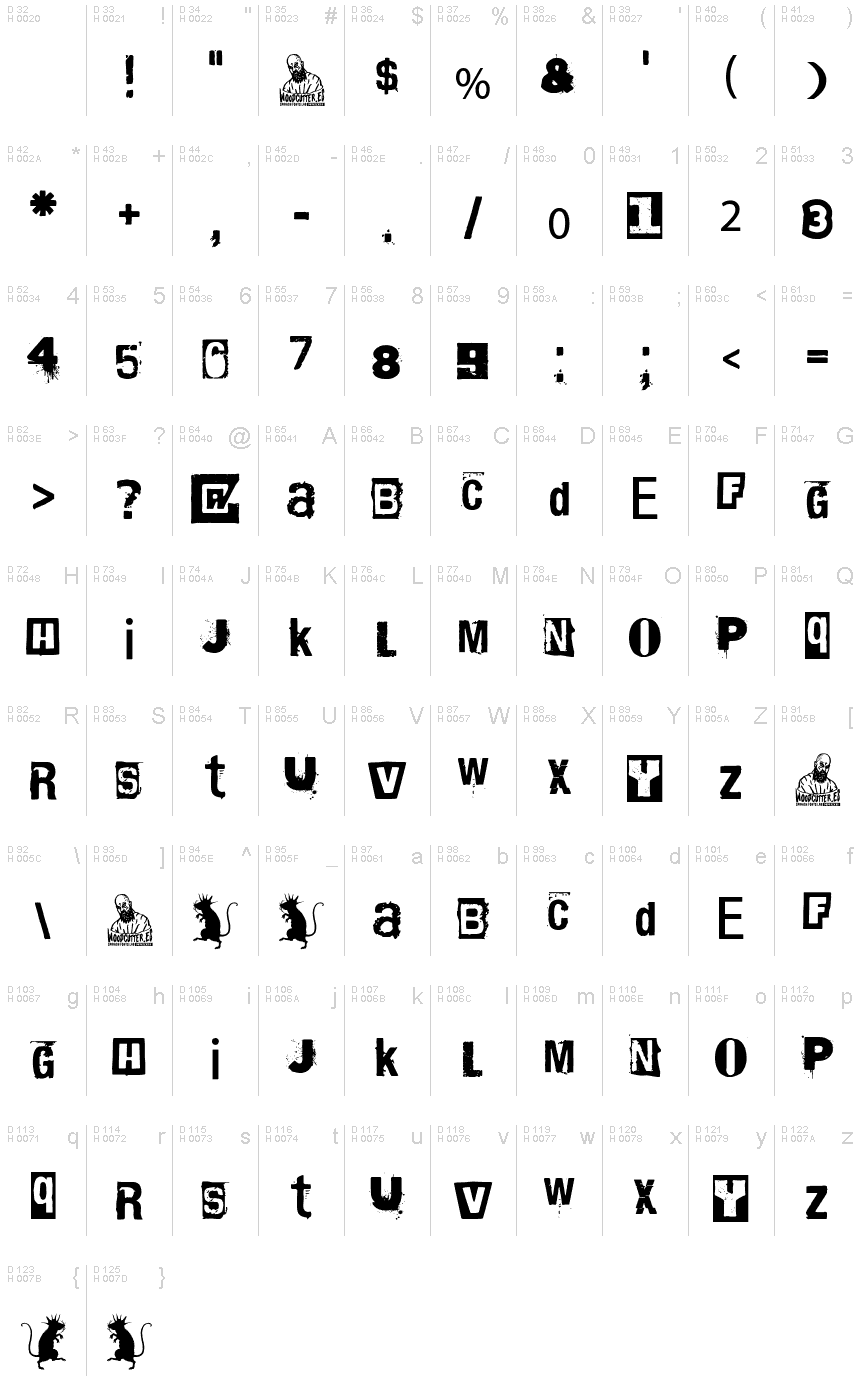
Black Rat Punk Band
The Black Rat Punk Band font by Woodcutter is a distorted, semi-bold display typeface that exudes an edgy and rebellious vibe. With its jagged and irregular letterforms, this font is perfect for projects that require a punk-inspired aesthetic.
Use it to create eye-catching posters for live music events, album covers that scream attitude, or even logo designs for alternative clothing brands. The Black Rat Punk Band font will infuse your designs with an unconventional and raw energy, making them stand out from the crowd.